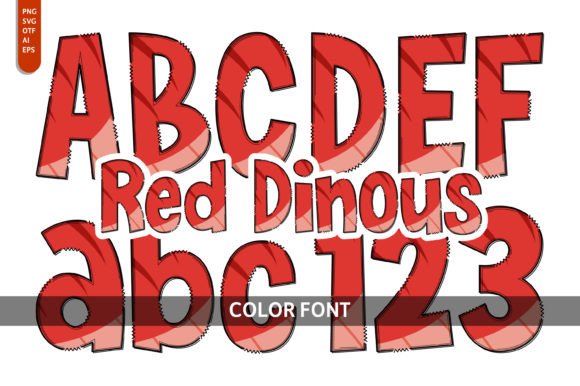
Step into the realm of unrestrained boldness and passion with Red Dinous, the font that ignites your designs with its fiery red hues and intricate artistry. This captivating typeface is a masterpiece, a symphony of power and intensity that commands attention and leaves a lasting impression.
With Red Dinous, your words transform into fierce expressions, exuding an aura of confidence and strength. Its striking red tones evoke a sense of energy and passion, captivating audiences and leaving them spellbound. This font is not just a collection of letters; it's an experience, a journey into a world where your designs take center stage and leave an unforgettable mark.
Red Dinous is not for the faint-hearted; it's a font that demands attention and commands respect. Its intricate details, meticulously crafted by the masters at Imagination Switch, bring a touch of elegance to the raw power of its design. Whether you're a tattoo artist seeking to create captivating designs, a graphic designer looking to make a statement, or a creative professional seeking to add a touch of fire to your work, Red Dinous is your weapon of choice.
With Red Dinous, you gain access to a font that:
- Unleashes your creativity with its bold and fiery design, perfect for projects that demand attention.
- Ignites passion and excitement in your designs, leaving a lasting impression on your audience.
- Commands respect and admiration with its intricate details and captivating red tones.
- Is meticulously crafted by the experts at Imagination Switch, ensuring the highest quality and attention to detail.
Embrace the power of Red Dinous and watch your designs transcend the ordinary, becoming masterpieces that ignite imaginations and leave a lasting legacy. This font is more than just a tool; it's a statement, a declaration of your boldness and passion.
Don't settle for mediocrity; choose Red Dinous and unleash the full potential of your creativity. Let your designs roar with confidence, ignite hearts with passion, and leave a trail of admiration that follows you wherever you go. With Red Dinous, your designs will not merely exist; they will conquer.